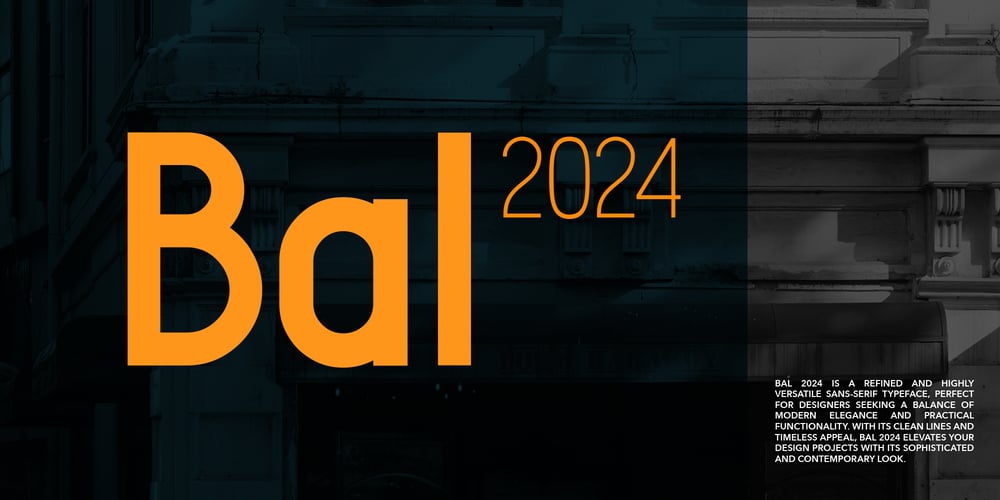
Bal 2024
Bal 2024 font
Bal 2024 Font Family was designed by Safa Caglayan Zorlu and published by Ikioda Design Office. Bal 2024 contains 2 styles and family package options. Bal 2024 is a refined and highly versatile sans-serif typeface, perfect for designers seeking a balance of modern elegance and practical functionality. With its clean lines and timeless appeal, Bal 2024 elevates your design projects with its sophisticated and contemporary look.Unique FeaturesSleek and Modern Design: Bal 2024 boasts a sleek, modern design that ensures your text stands out with clarity and style. Its refined letterforms make it ideal for headlines, banners, logos, and any application requiring a polished and professional appearance.Versatile Applications: Whether you’re designing for print or digital media, Bal 2024 adapts seamlessly to various contexts. Its versatile nature allows it to shine in everything from editorial design and advertising to branding and web design.Complementary Pairings: Bal 2024 pairs exceptionally well with both serif and sans-serif fonts. Use it alongside contrasting typefaces to create a harmonious and visually engaging design.Functional AspectsExtended Character Set: Bal 2024 features a comprehensive character set, providing you with all the typographic tools necessary for creative and functional design. It includes uppercase and lowercase letters, numerals, punctuation, and special characters.Enhanced Legibility: Designed with meticulous attention to detail, Bal 2024 ensures legibility at various sizes and resolutions. Whether used in large-scale posters or small captions, Bal 2024 maintains its readability and aesthetic appeal.Design ConceptInspired by Timeless Typographic Trends: Bal 2024 draws inspiration from classic sans-serif typefaces, incorporating modern touches to create a font that is both timeless and contemporary. The design concept behind Bal 2024 was to develop a typeface that delivers both elegance and functionality, suitable for a wide range of design projects.A Legacy of Success: The Bal typeface was first released in 2015 as a limited, free version and was downloaded by hundreds of thousands of users. This overwhelming interest inspired the creation of Bal 2024, a more detailed and advanced version of the original.Why Bal 2024?When you choose Bal 2024, you’re selecting a typeface that embodies modern elegance and versatility. Its sleek design and practical features ensure that your projects will make a lasting impression. Whether you’re working on branding, editorial, or digital design, Bal 2024 is the typeface that brings sophistication and clarity to your work.